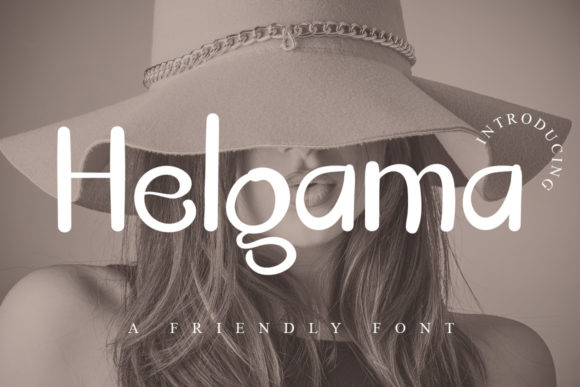
Adorn your designs with a touch of charm and sophistication with Helgama Font, the exquisite display font that exudes elegance and grace. This captivating font, crafted by the talented team at Seven Letter, is an ode to timeless beauty and modern aesthetics. Helgama is not just a font; it's an artistic expression that will elevate your designs, captivating your audience with its allure.
With its delicate curves and graceful lines, Helgama embodies the essence of romance and elegance. Each letter, meticulously crafted, dances across the page with a fluidity that mesmerizes the eye. Whether you're designing wedding invitations, crafting logos, or creating social media posts, Helgama adds an undeniable touch of sophistication that sets your work apart.
Imagine your wedding invitations, adorned with Helgama's enchanting characters, exuding an aura of timeless elegance. The flowing lines and delicate swashes will create a sense of magic, making your special day even more memorable. From save-the-dates to thank-you cards, Helgama transforms ordinary words into heartfelt expressions of love and gratitude.
Helgama is not limited to the realm of weddings; its versatility extends to a myriad of creative projects. Envision your brand's logo, emblazoned with Helgama's bold yet refined strokes, commanding attention and leaving a lasting impression on your customers. The font's clean lines and crisp edges convey professionalism and trustworthiness, making it the perfect choice for businesses seeking to establish a strong brand identity.
Unleash your creativity with Helgama and explore the endless possibilities it offers. Design social media posts that captivate your audience with their visual appeal. Create eye-catching flyers and posters that demand attention and compel action. With Helgama as your partner, your designs will radiate sophistication, leaving a lasting impression on all who encounter them.